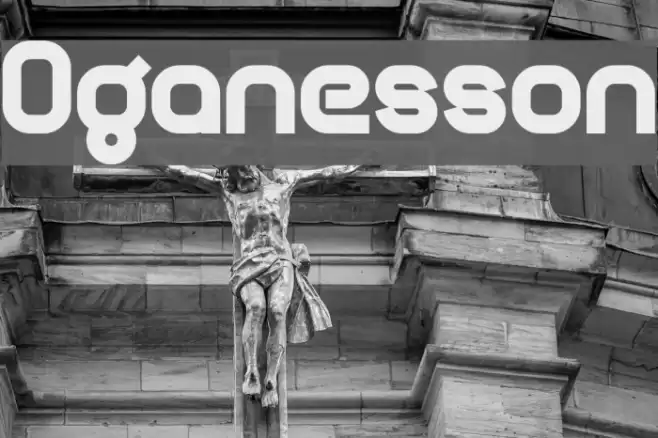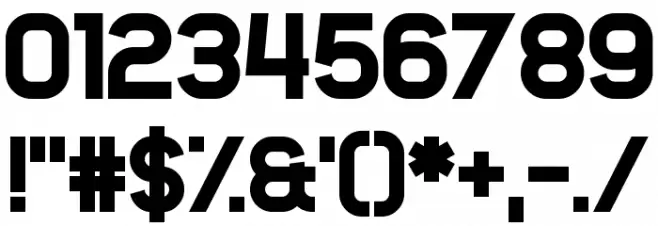
Oganesson Font
Oganesson Description
This font features a bold and modern sans-serif style with a strong geometric structure. The uppercase letters are uniform in height, creating a cohesive and balanced appearance. The lowercase letters maintain a similar width, contributing to a consistent and clean look. The numbers are bold and easy to read, making them suitable for various applications. Special characters are designed with the same boldness, ensuring they stand out. The overall design is sleek and contemporary, ideal for projects that require a modern touch.
A bold, modern sans-serif font with a geometric structure from Uncategorized fonts.
- Proposed Projects: Ideal for branding, advertising, headlines, and digital media projects that require a modern and bold aesthetic.
- Use Case: Headlines, Logos, Branding